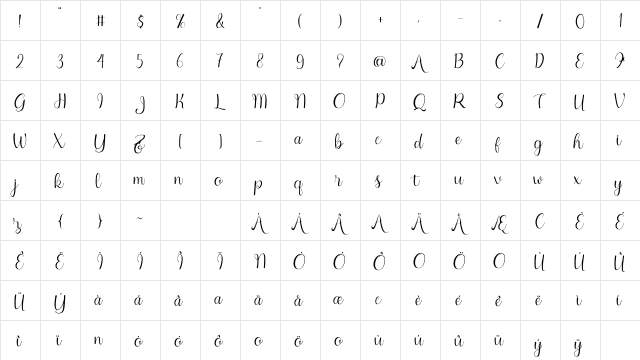
Little Funny Script Regular Font Preview
Little Funny Script Regular
Little Funny Script Regular Font Details
| Foundry | Letter Deen Co. |
| Designer | Muhammad Wahyudin |
Design Context for Little Funny Script Typeface
Little Funny Script has an approachable, lighthearted character — its loose, expressive forms are well-suited to children's content, casual branding, and fun-first design.
Well-suited to food and beverage brands with personality, educational materials, and fun-forward identities.
Font Pairing: Pairs well with a rounded or humanist sans for body copy, maintaining the friendly tone without relying on Little Funny Script to carry extended reading.
Pro Tip: Use Little Funny Script at larger display sizes where its expressive character can land. Pair with a clean, simple sans for body copy to maintain readability.